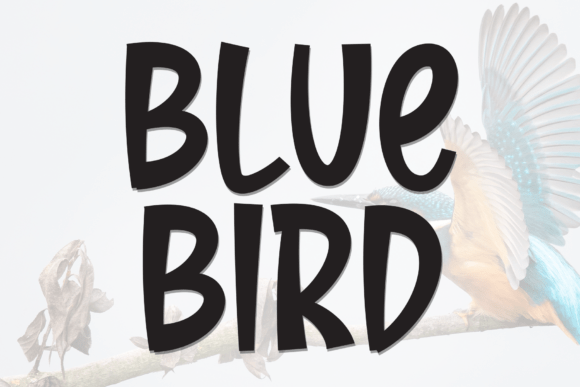
The Blue Bird Font: A Friendly and Versatile Display Font for Creatives
Have you ever been in the middle of a design project, and suddenly, you’re stuck on finding the perfect font? I recall a recent experience where I was working on a branding project for a new coffee shop, and I just couldn’t find a font that captured the warm and inviting vibe I was looking for. That’s when I stumbled upon the Blue Bird font, and it instantly became my go-to choice. In this article, I’ll share my experience with this lovely font, its features, and how you can make the most of it in your designs.
A Personal Favorite: What I Love About Blue Bird Font
The Blue Bird font has quickly become a staple in my design toolkit, and for good reason. Here are some of the things I love about it:
• ✨ Clean lines and balanced letterforms: The font’s structure is crisp and clear, making it perfect for headlines, titles, and short paragraphs.
• ✅ Subtle rounded edges: The soft edges give the font a friendly and approachable feel, making it ideal for designs that require a warm touch.
• 💡 Versatile style: Blue Bird works well in various design contexts, from branding and packaging to digital content and social media graphics.
An Honest Review: A Few Quirks to Consider
No font is perfect, and Blue Bird has a few minor limitations to keep in mind:
• 🤔 Limited use for body text: While Blue Bird is great for headlines and titles, it might not be the best choice for longer paragraphs of body text due to its display font nature.
• ⚠️ Some glyphs may require manual adjustment: Depending on the design, you might need to tweak certain glyphs to ensure they fit perfectly with the rest of the text.
The Story Behind Blue Bird Font
The Blue Bird font was designed with the intention of creating a friendly and approachable display font that captures the essence of modern handwritten typography. The designer aimed to create a font that would be perfect for branding, headlines, and packaging, while also being easy to read and versatile enough to work in various design contexts.
What is the Blue Bird font best suited for? The Blue Bird font is ideal for designs that require a friendly and approachable vibe, such as branding, headlines, packaging, and digital content.
Is Blue Bird font suitable for body text? While Blue Bird font can be used for short paragraphs, it’s primarily designed as a display font and may not be the best choice for longer body text.